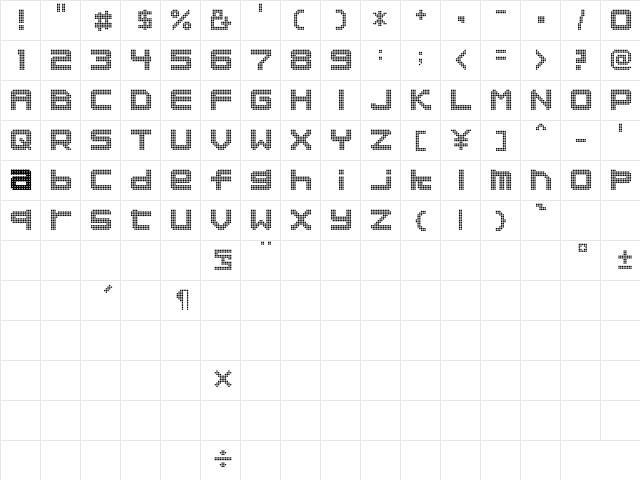
Orandakan Kana Regular Font Preview
Orandakan Kana Regular
Design Context for Orandakan Kana Typeface
Orandakan Kana is a composed and adaptable typeface that performs quietly and consistently across a wide range of design contexts.